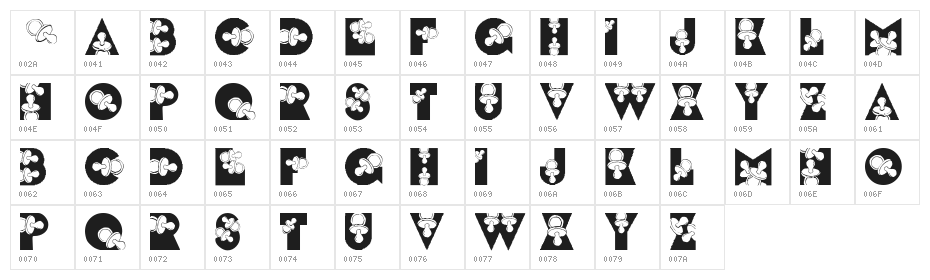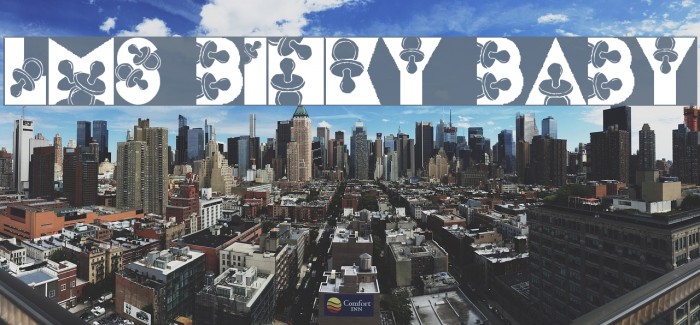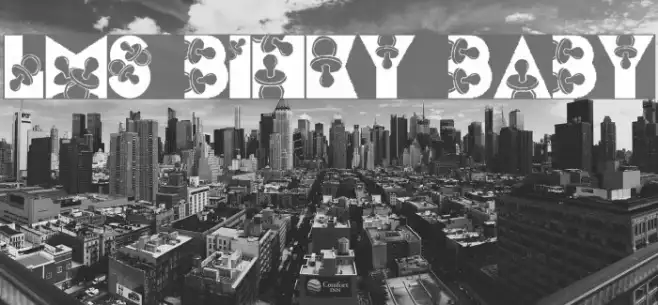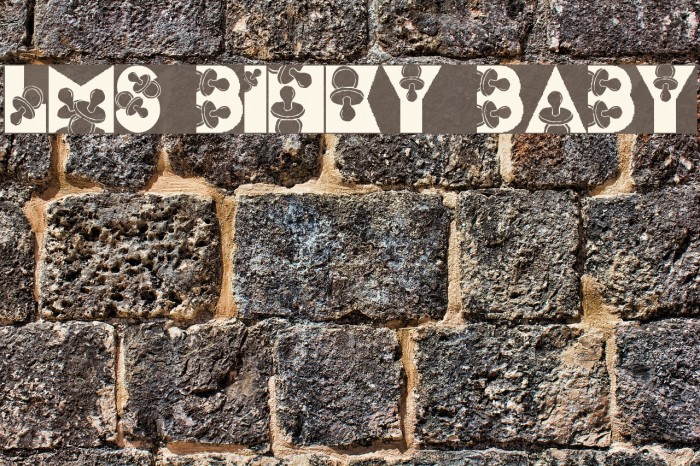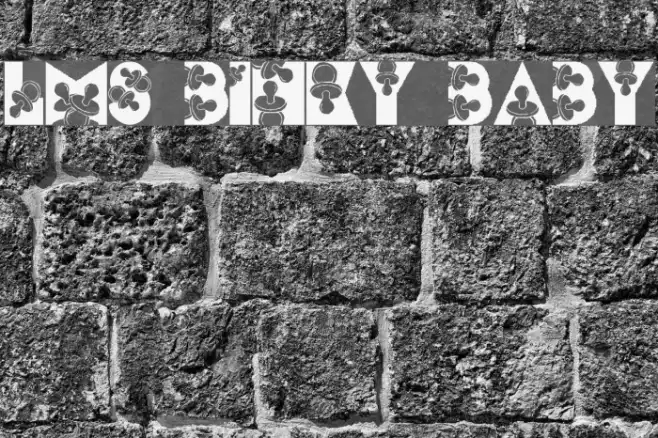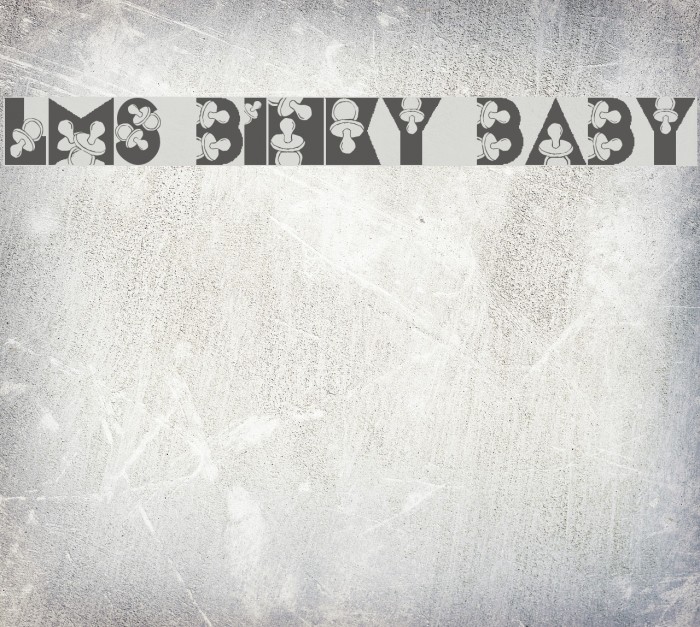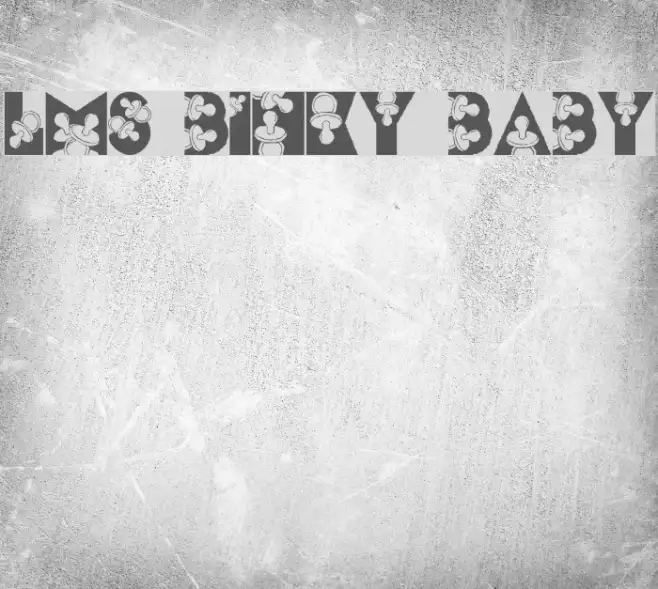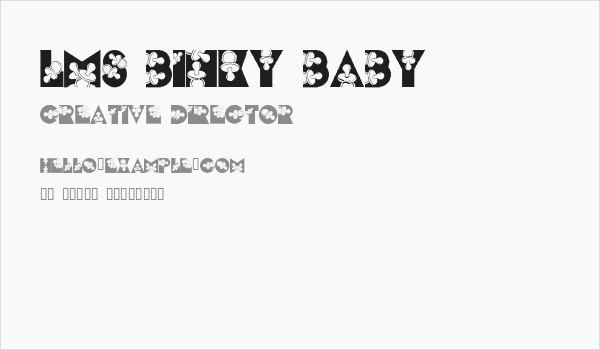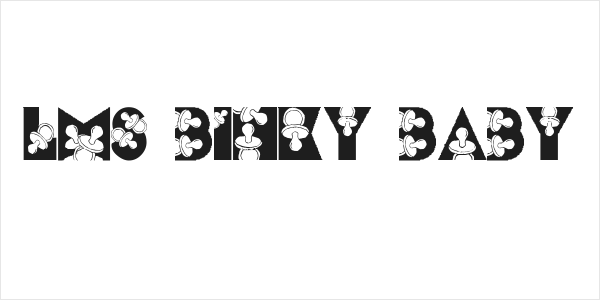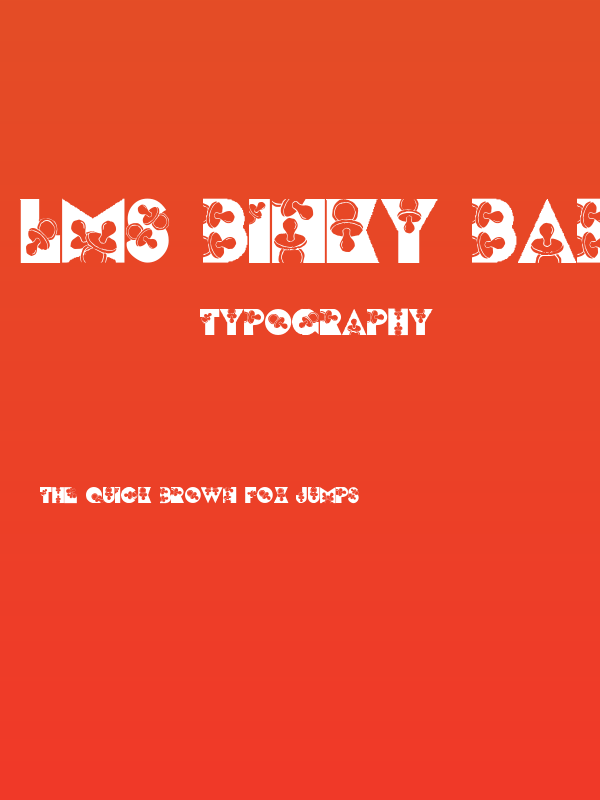
LMS Binky Baby Font
LMS Binky Baby Description
This playful and whimsical font features bold, blocky letters with a unique twist. Each character is creatively integrated with a pacifier motif, making it ideal for designs aimed at children or baby-related themes. The letters are uppercase, with a consistent, solid structure that ensures readability while adding a fun, decorative element. The pacifier design is seamlessly incorporated into each letter, providing a cohesive and charming appearance. This font is perfect for projects that require a touch of innocence and joy, such as children's books, baby shower invitations, or nursery decor.
| Proposed Projects | Ideal for children's books, baby shower invitations, nursery decor, and playful branding. |